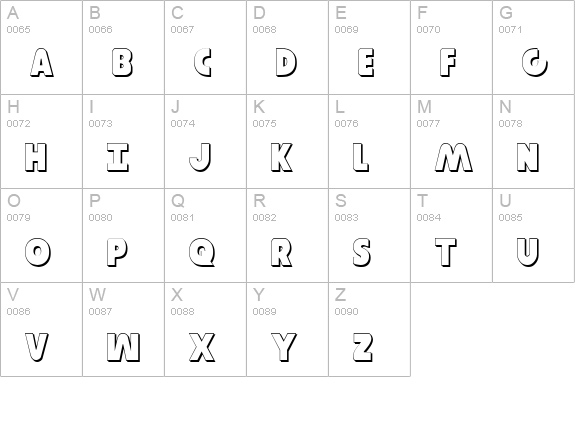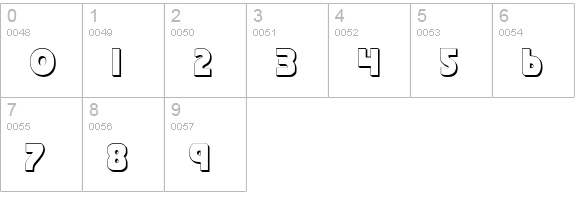
Governor Shadow Font Details
Governor Shadow font is a bold and commanding typeface that exudes authority and elegance. Its sharp edges and intricate shadow detail give it a unique and impactful presence, making it perfect for headlines, titles, and logos that demand attention. With its sleek design and sophisticated aesthetic, Governor Shadow font is sure to make a lasting impression on any project. Best of all, Governor Shadow font is available for free download at FontsMarket.com. Don't miss out on this opportunity to add a touch of sophistication and boldness to your designs with this stunning typeface. Download Governor Shadow font today and elevate your projects to the next level.